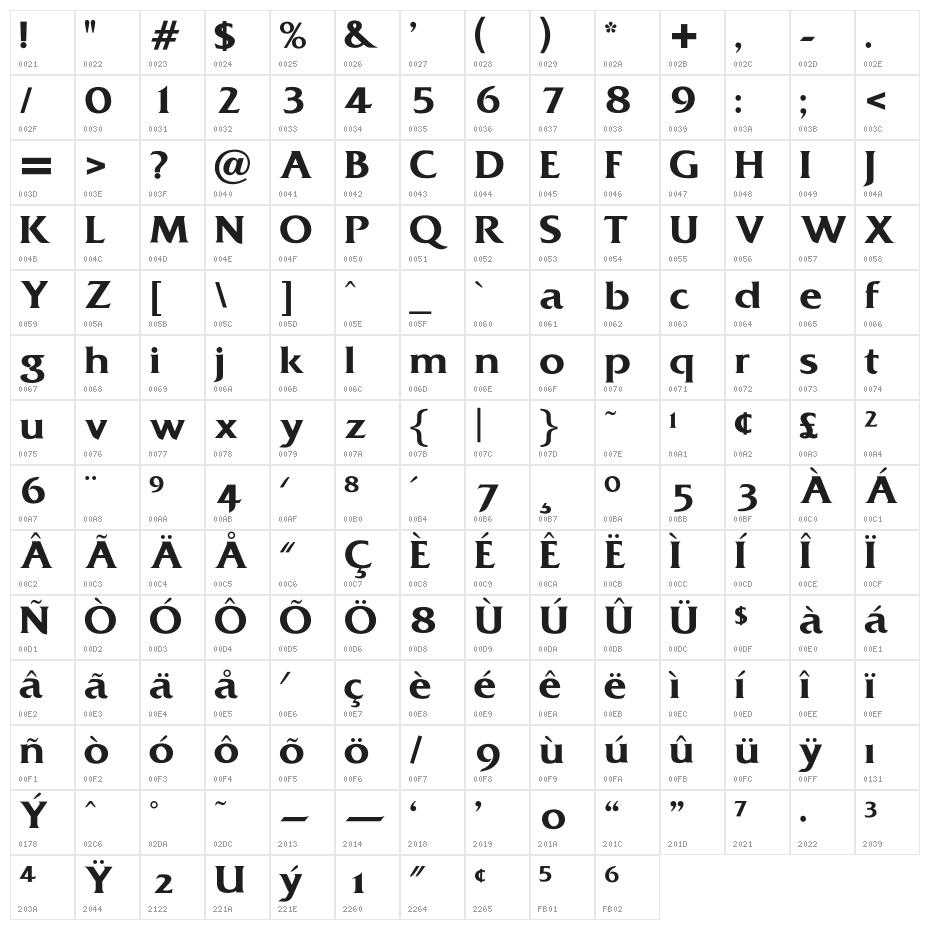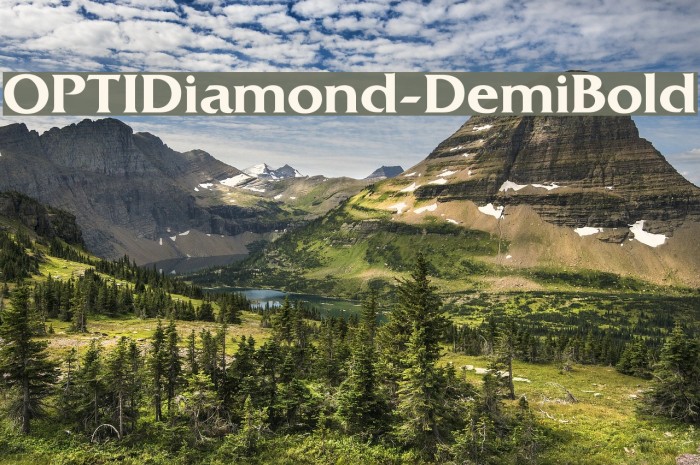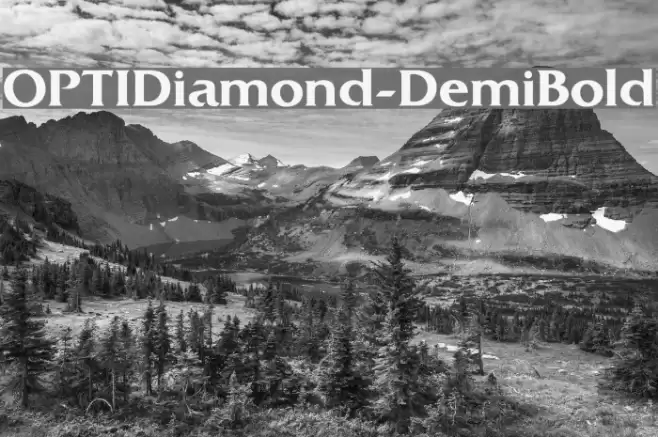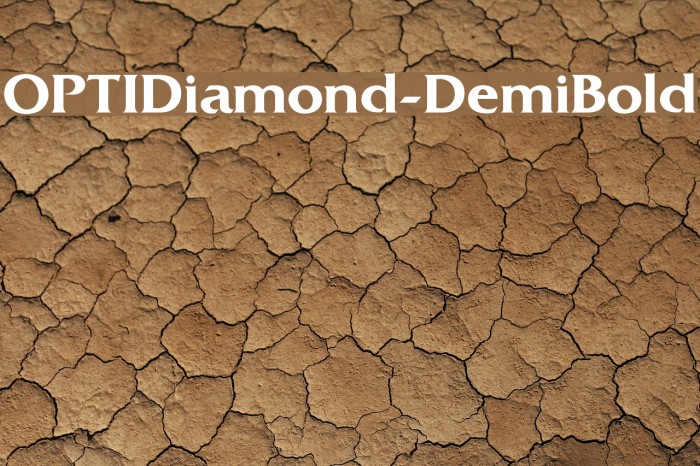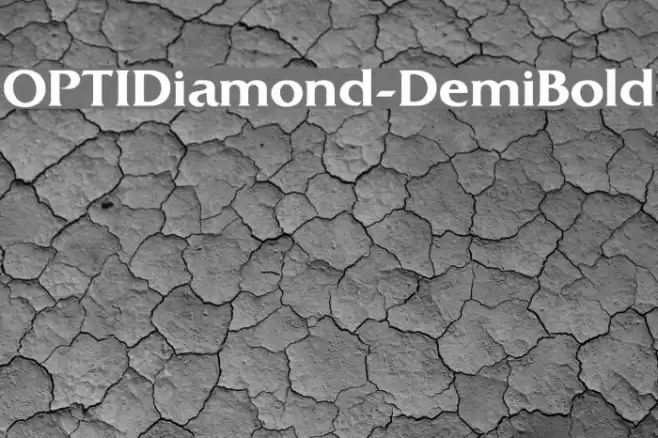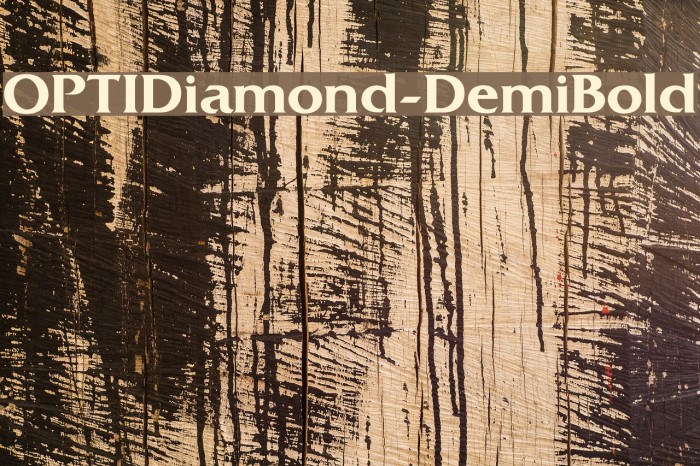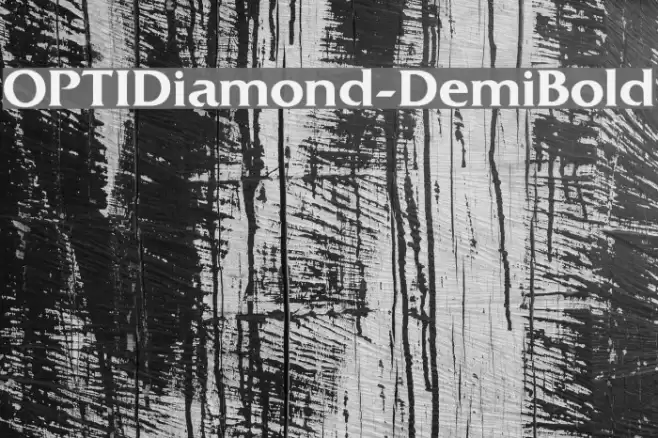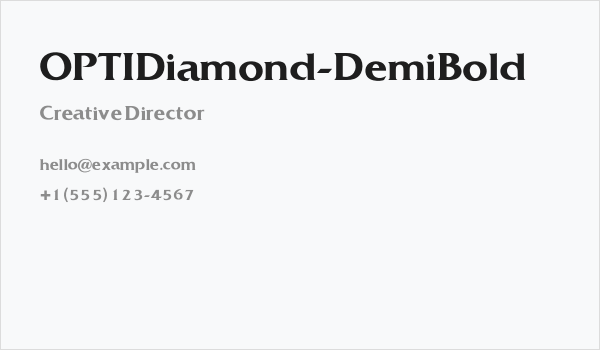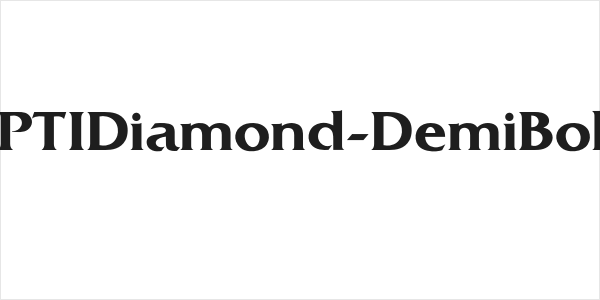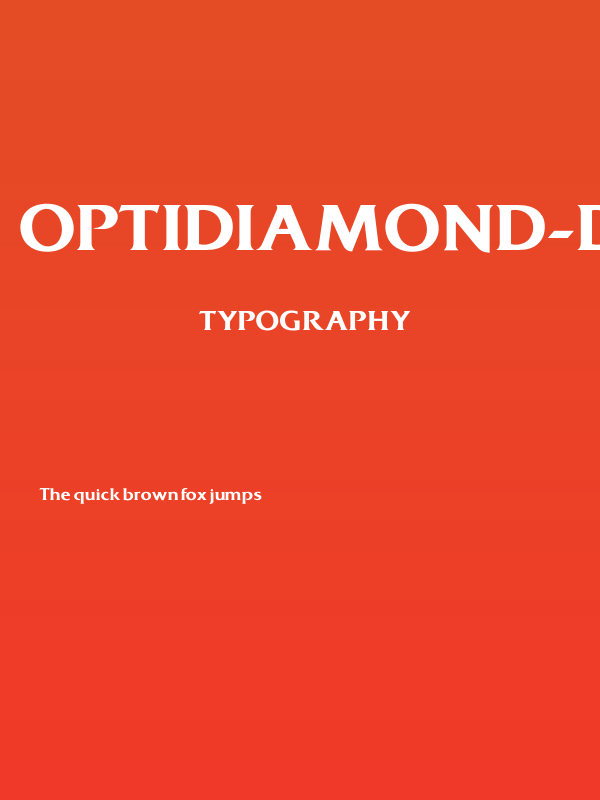
OPTIDiamond-DemiBold Font
OPTIDiamond-DemiBold Description
This font features a bold and dynamic style with a strong presence. The uppercase letters are robust and slightly condensed, giving a sense of authority and confidence. The lowercase letters maintain a consistent weight, offering a harmonious balance between elegance and strength. The numerals are clear and distinct, ensuring readability. Special characters are crafted with attention to detail, enhancing the font's versatility. Overall, this font is designed to make a statement while maintaining legibility.
| Proposed Projects | Ideal for branding, headlines, posters, and any project requiring a bold statement. |